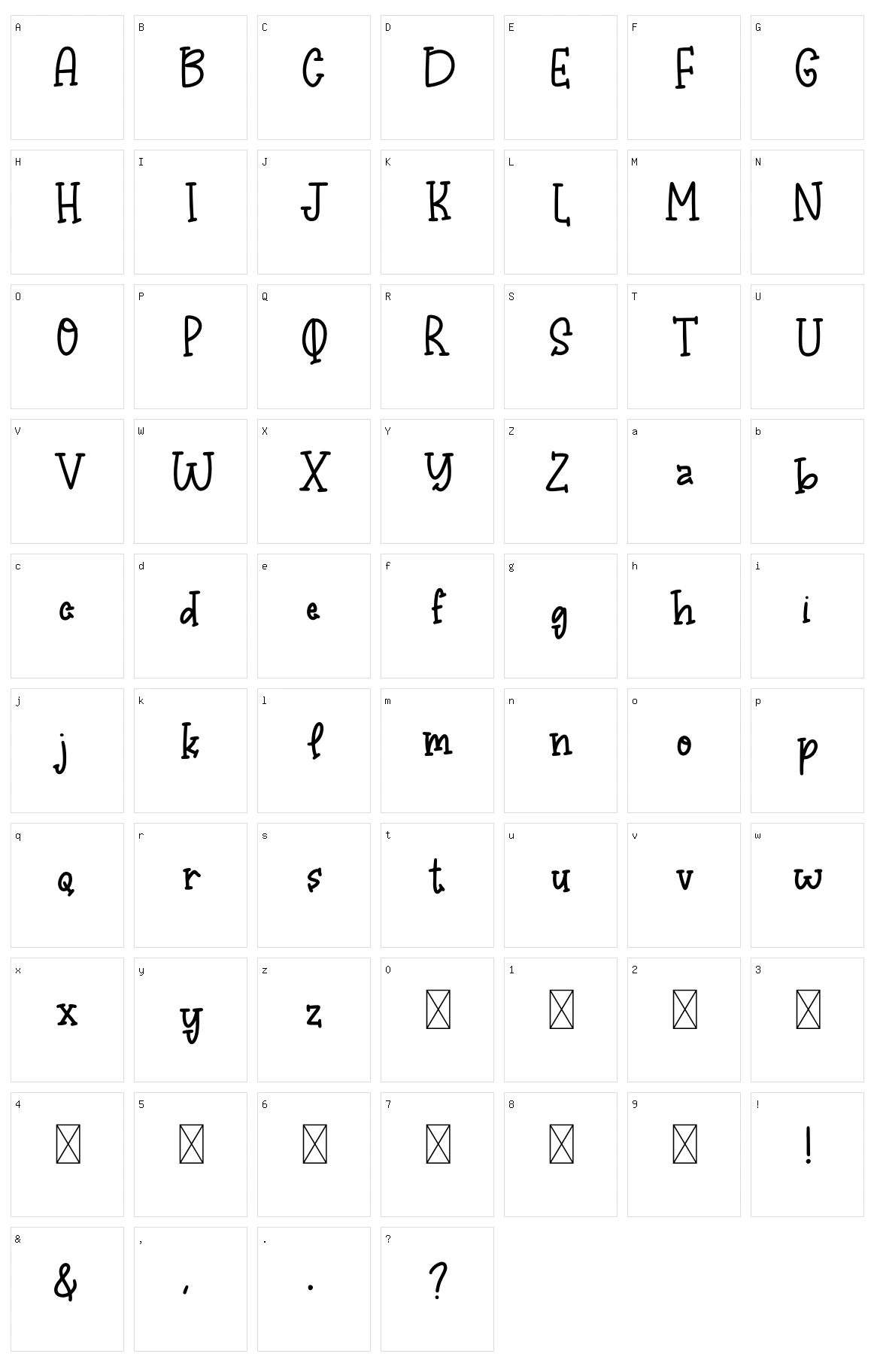
The free font Bajira is carefully designed by Denny Subagja, showcasing a thoughtful balance of creativity and usability and falls under the Cartoon font style. When you download the ZIP file, it contains only 39.82 KB of font files, making it lightweight and quick to download. Please review the license details below to understand permitted usage and distribution rights. If license information is not available, we recommend using this font for personal projects only or contacting the author directly for commercial usage permissions.